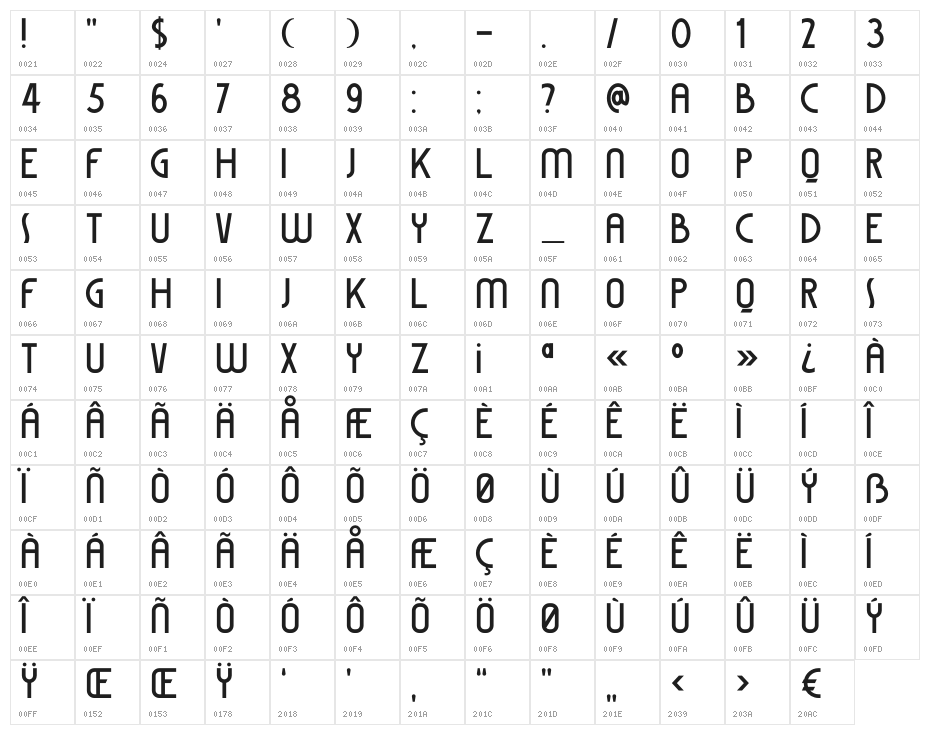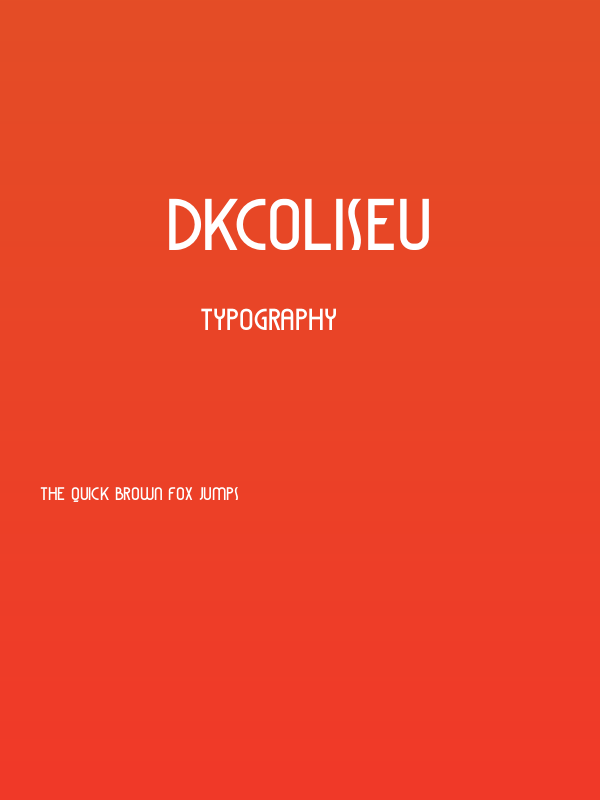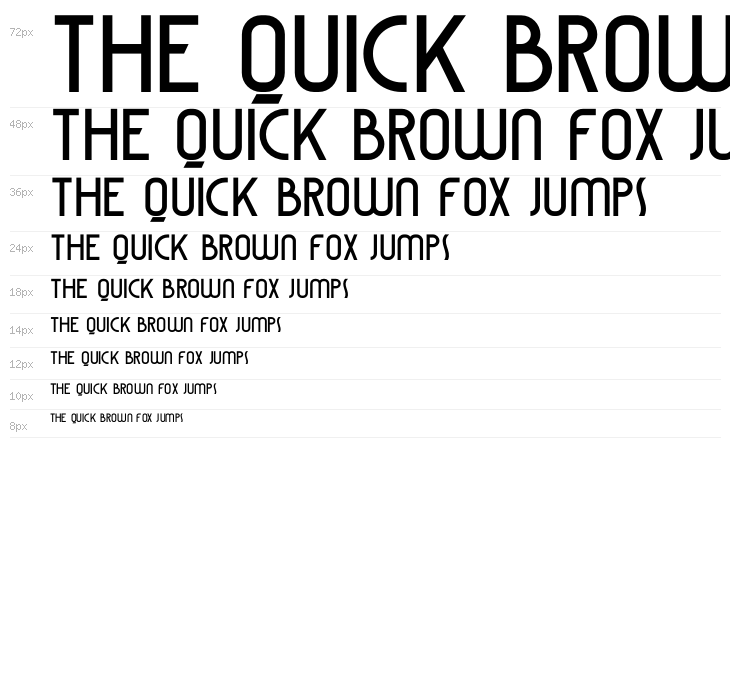
DKColiseu Font
DKColiseu Description
This font features a modern and geometric design with clean lines and a structured appearance. The characters are uniform in width, creating a harmonious and balanced look. The uppercase letters have a distinct, bold presence, while the lowercase letters maintain a consistent style that complements the overall aesthetic. The numerals are clear and easy to read, with a slight curvature that adds a touch of elegance. Special characters are designed to match the font's geometric theme, providing a cohesive look across all elements. The font's simplicity and clarity make it suitable for a wide range of applications, from digital interfaces to print media.
| Proposed Projects | Ideal for branding, digital interfaces, signage, and editorial design. |